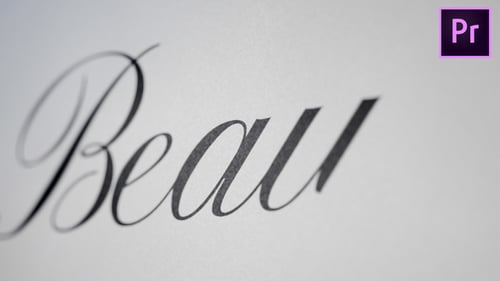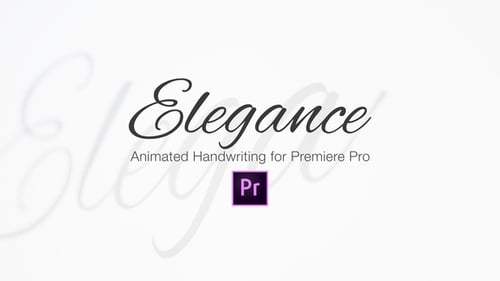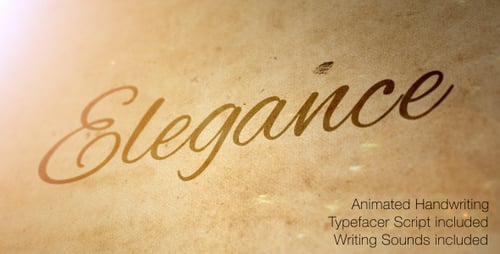
Elegant Calligraphic Handwriting Text Reveal Animation
This elegant video template features a beautiful handwriting text reveal animation. It brings a touch of classic sophistication and artistry to any project, perfectly simulating fluid, calligraphic pen strokes. The template animates a full Latin alphabet, digits, and special characters, allowing for complete customization of words and phrases. Ideal for creating stunning openers, personalized greetings, romantic messages, or elegant titles for special occasions like Christmas and New Year. Its user-friendly one-click solution simplifies the animation process, delivering graceful and artistic text animations with ease.